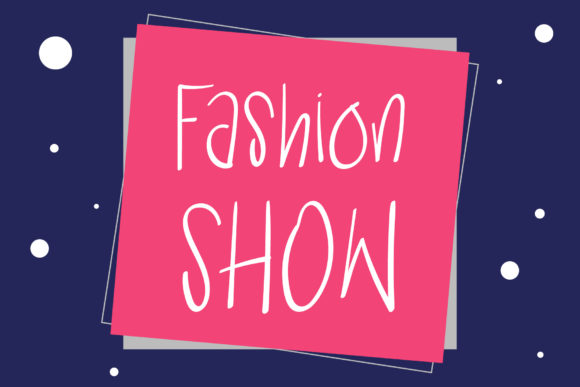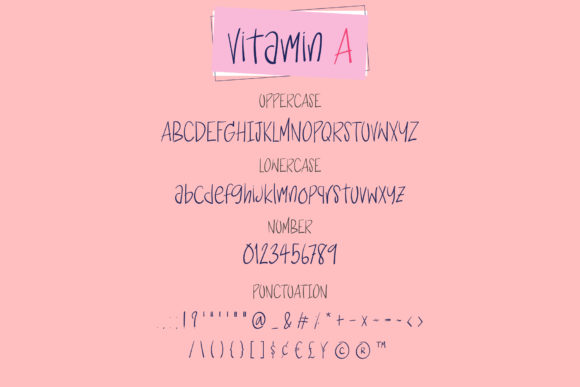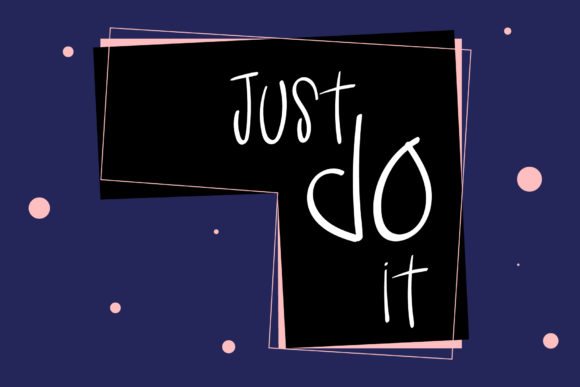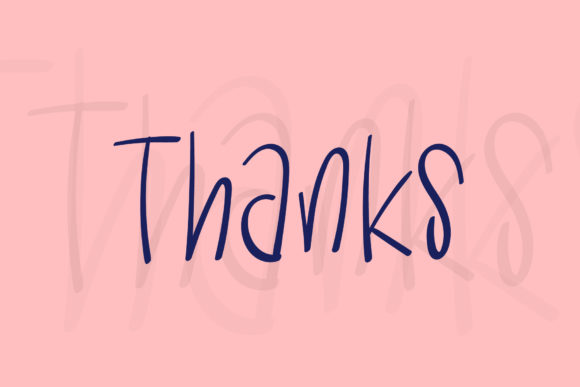
Vitamin a Font
About Vitamin a Font
Vitamin A is a beautiful and neat script font. Its natural and unique style makes it incredibly fitting to a large pool of designs. The only limit is your imagination!